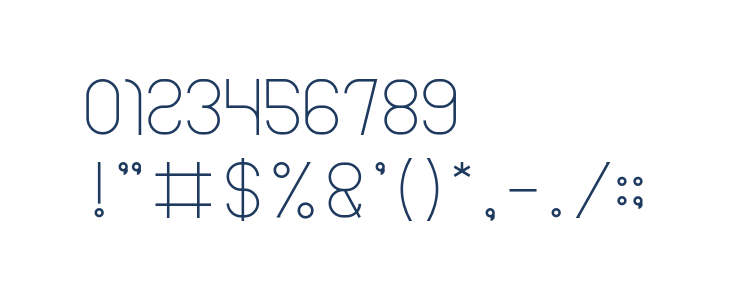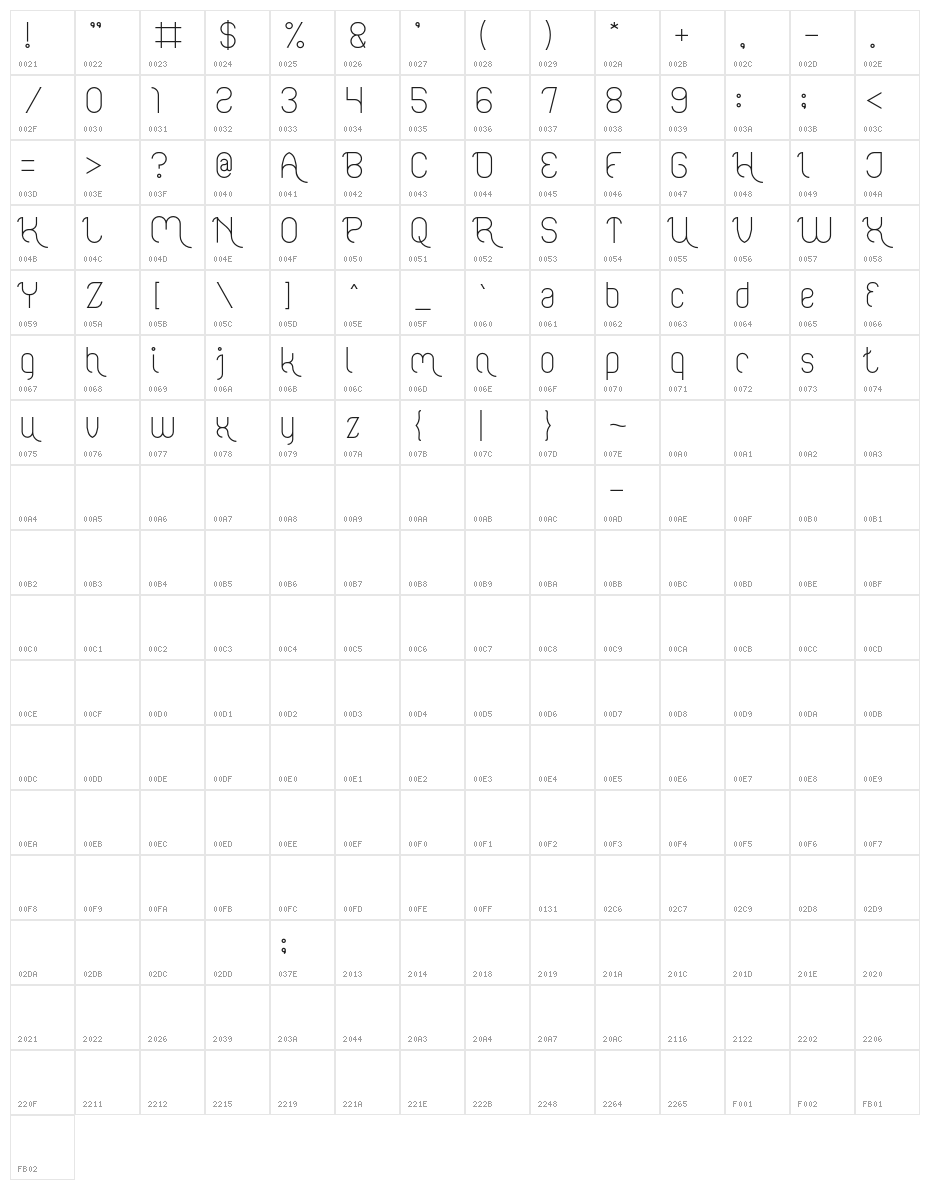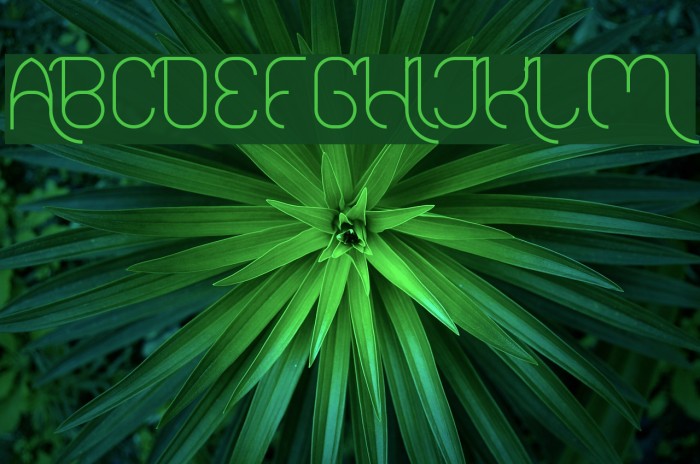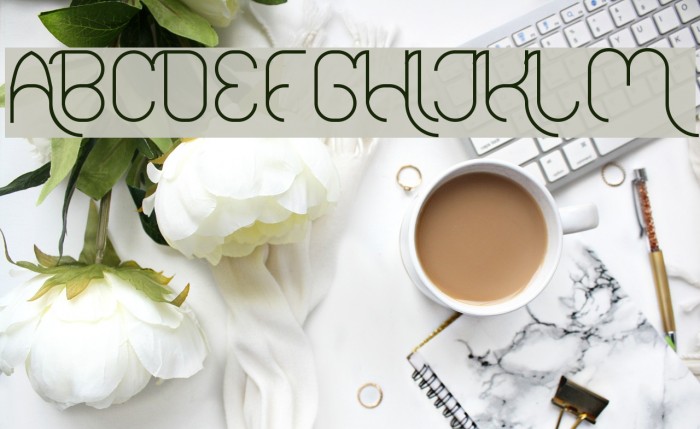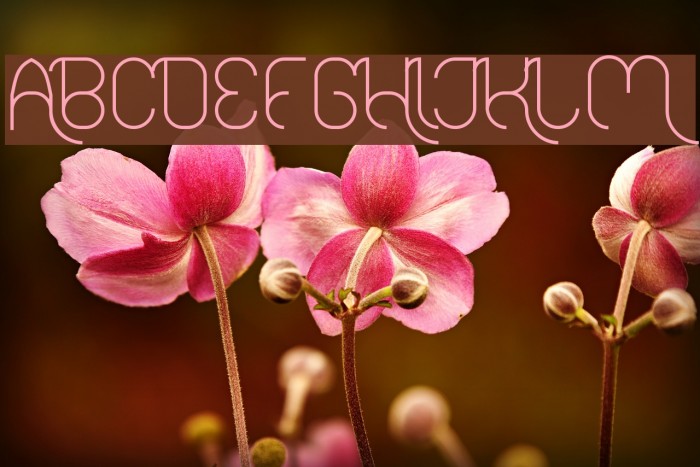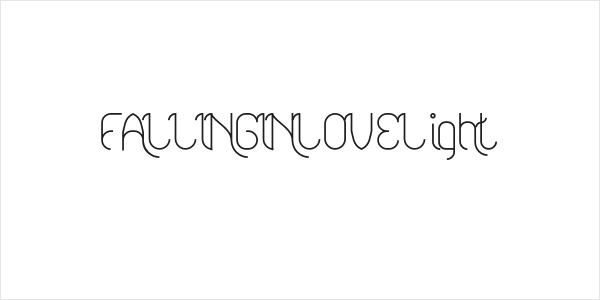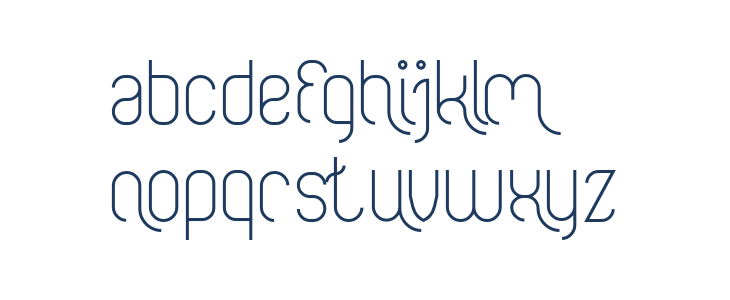
FALLINGINLOVELight Font
FALLINGINLOVELight Description
This font features a unique and modern design with a playful twist. The characters are composed of thin, elegant lines with distinctive curves and loops, giving it a whimsical yet sophisticated appearance. The uppercase letters are particularly striking, with their elongated forms and creative use of negative space. The lowercase letters maintain a consistent style, ensuring readability while adding a touch of flair. Numbers and special characters are designed to match the overall aesthetic, making this font versatile for various applications. Its light weight and airy feel make it suitable for projects that require a contemporary and artistic touch.
| Proposed Projects | Ideal for branding, invitations, posters, and artistic projects that require a modern and playful touch. |